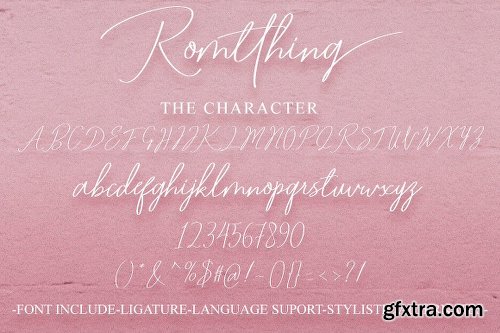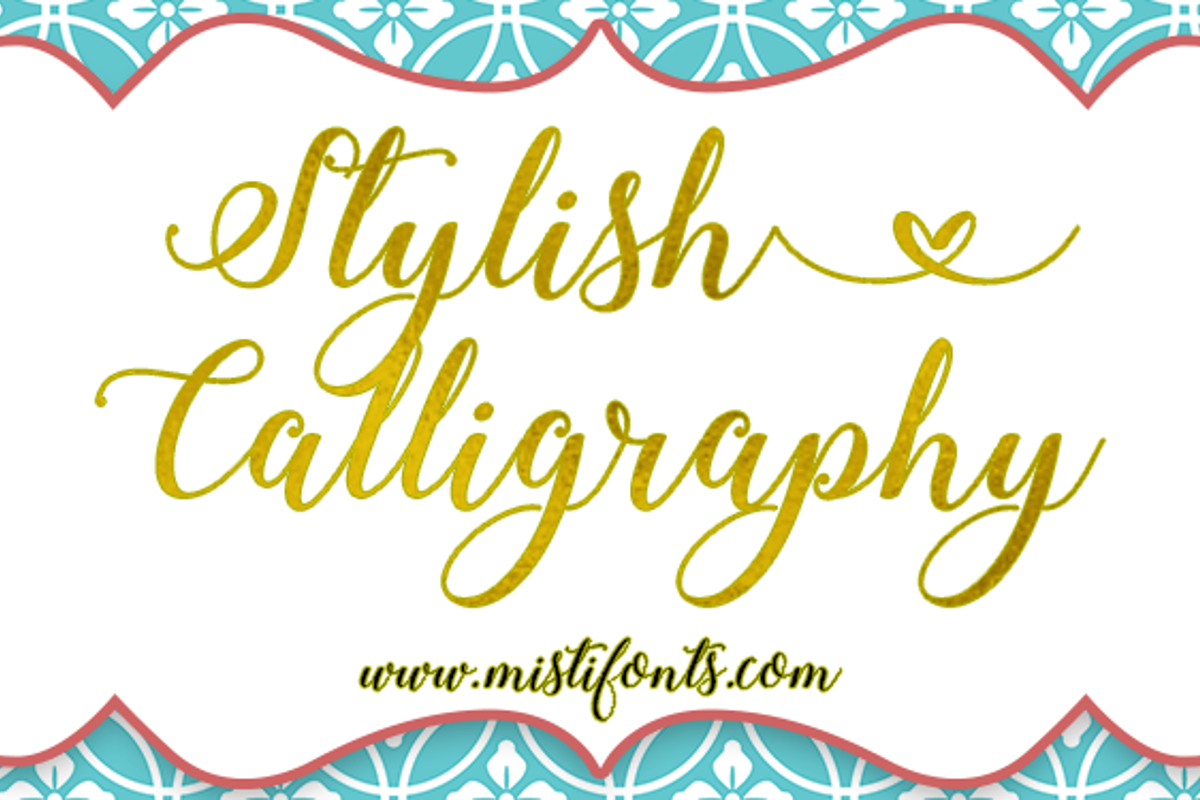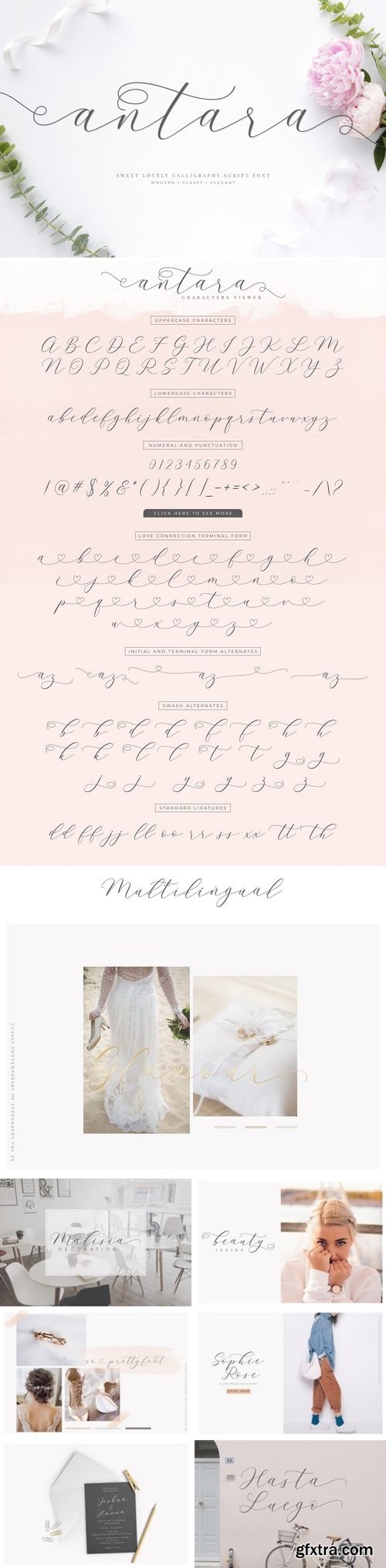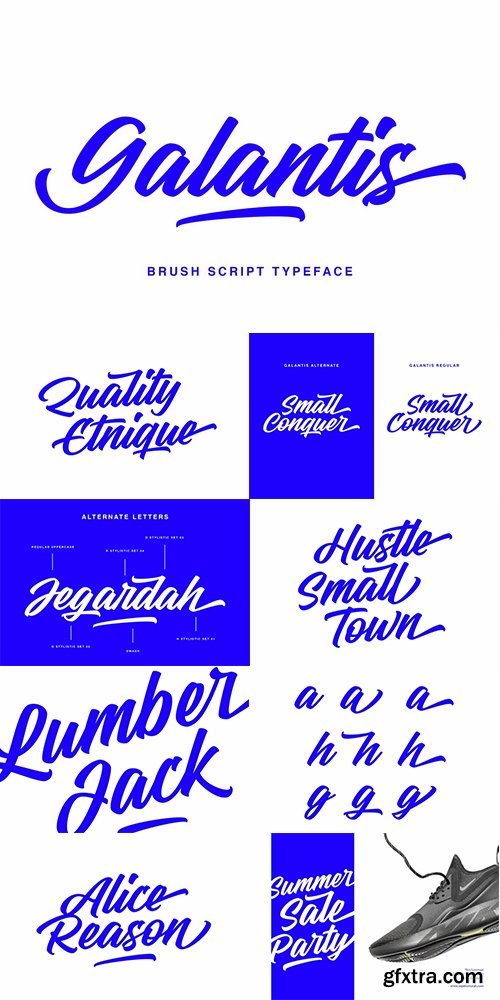
delicate script tattoo fonts
From ornate cursive masterpieces to traditional calligraphy and even custom fonts lettering has become an art form and can add a new level of beauty to any tattoo.
Delicate script tattoo fonts. Every font is free to download. Fonts for tattoos drawings and decorations. Script style tattoo fonts feature much wider and longer curves while display tattoo fonts have more stylistic serifs. Click to find the best 98 free fonts in the delicate style.
Cursive script feminine masculine formal informal messy neat scribbled brushed graffiti.